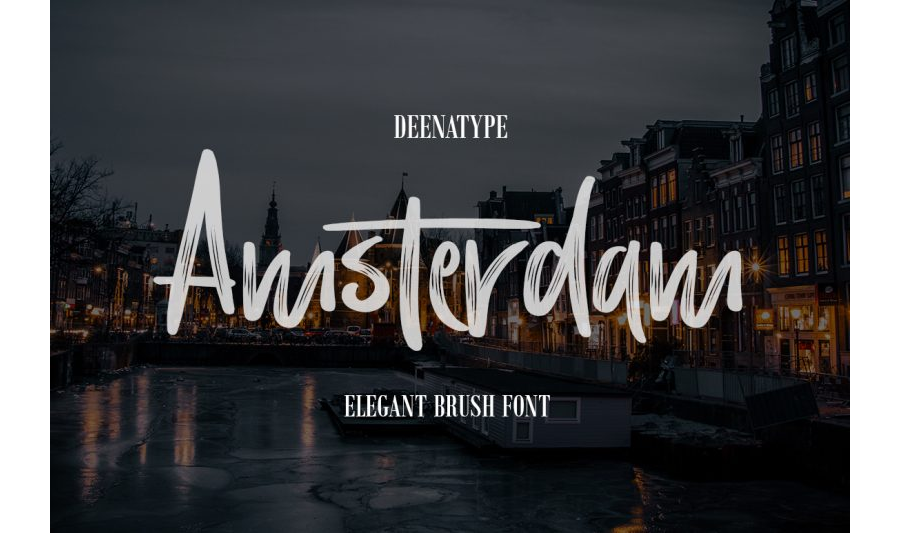
Amsterdam Brush Font Demo
Amsterdam Brush Font Demo is the part of a beautiful hand lettering brush font with textured characters from Deena Type. This stunning font is looking stylish and the firm makes it perfect for display purposes. You can also use it for posters, wedding invitations, Card Name, social media, and more!